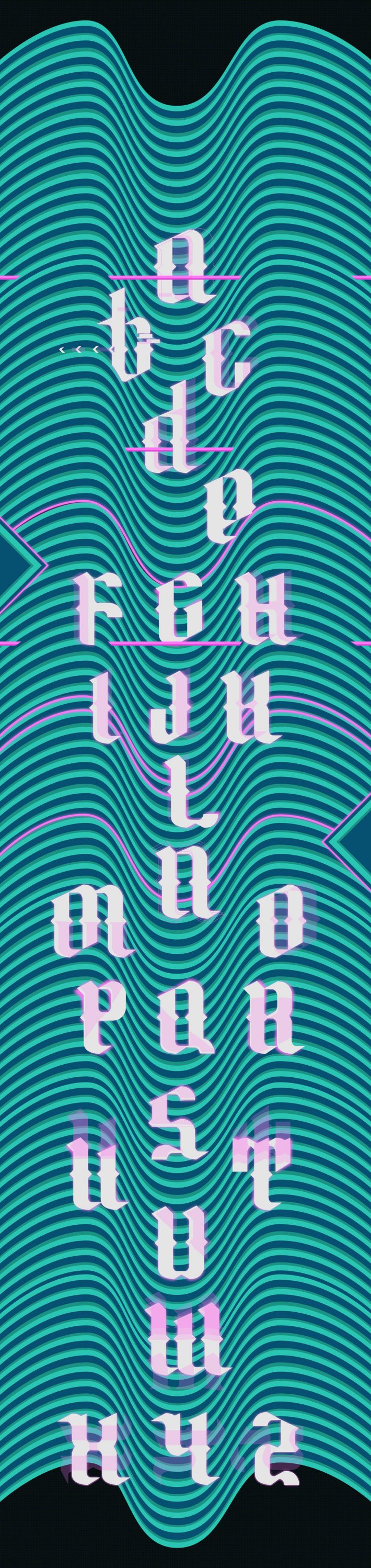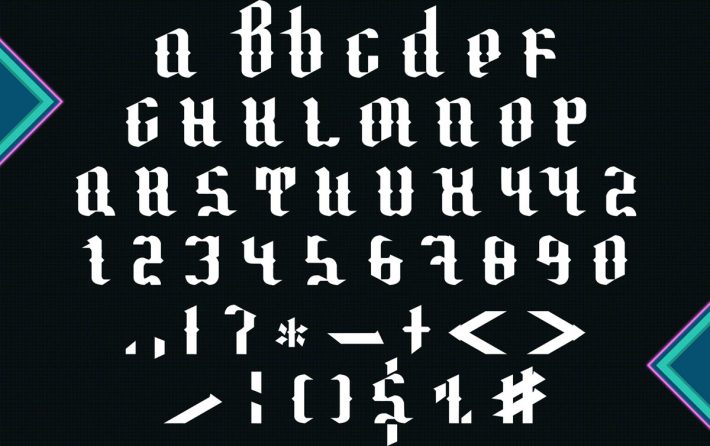
Gothic font was created by Christopher Lokamp in 2016 to 2017 year. So many edit was made in FontLab VI. Font was ready for me about 6 months.
“I waited for when I think of a design for him that would convey my mood. It font – my vibe in recent time. You probably saw similar Gothic fonts“.
Says creator.